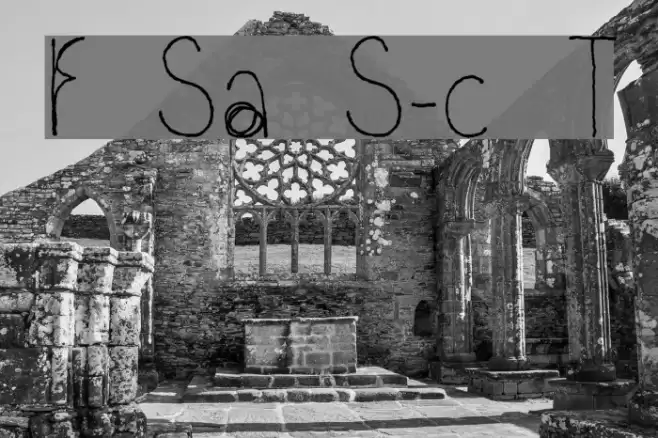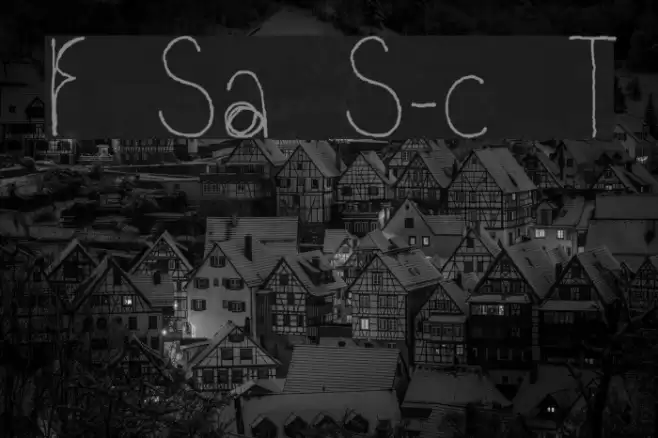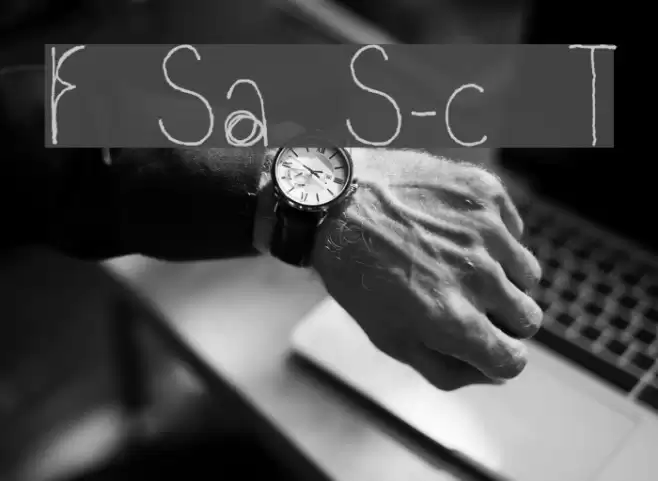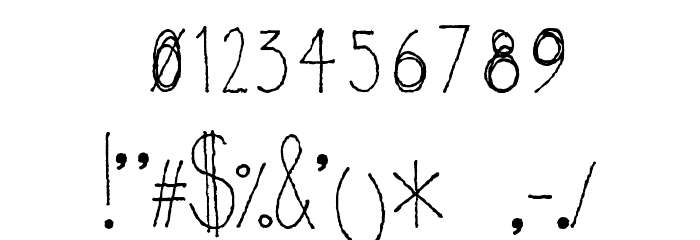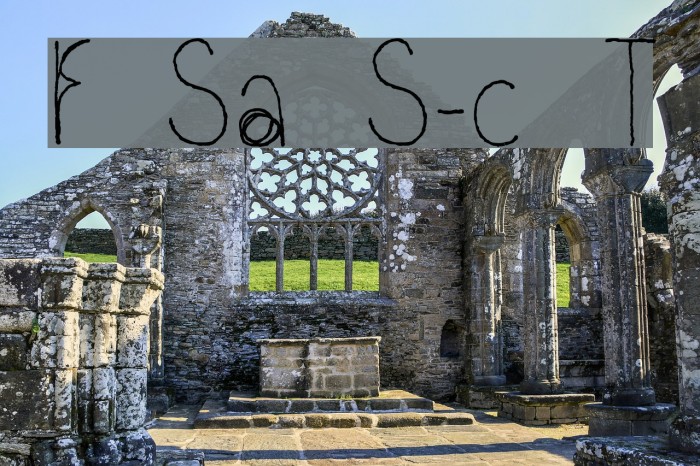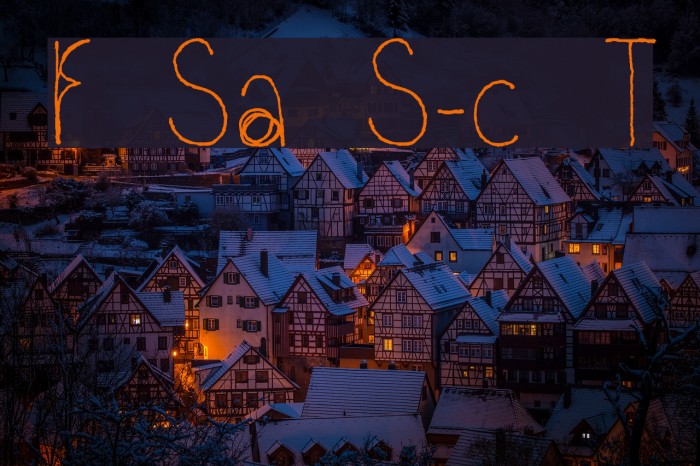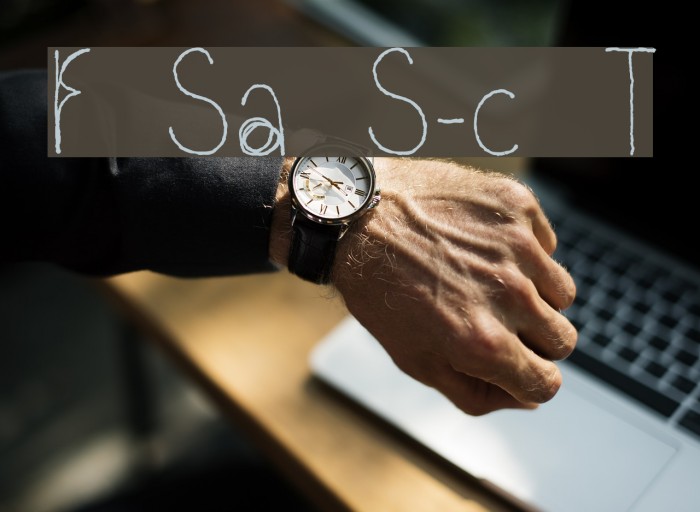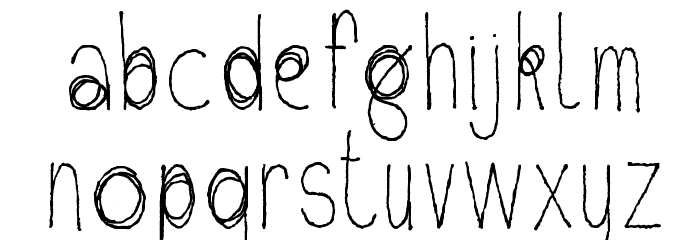
Fil Sans Semi-condensed Thin Font
Fil Sans Semi-condensed Thin Description
This font features a unique, hand-drawn aesthetic with semi-condensed letterforms that convey a casual and artistic vibe. The thin strokes and irregular shapes give it a whimsical and playful appearance, making it stand out in creative projects. The uppercase and lowercase letters maintain a consistent style, while the numerals and special characters complement the overall design. Its distinctive look is ideal for projects that require a personal touch or an informal tone.
A whimsical, hand-drawn font with semi-condensed, thin strokes from Crazy fonts.
- Proposed Projects: Ideal for greeting cards, children's books, artistic posters, and creative branding.
- Use Case: Logos, Headlines, Artistic projects